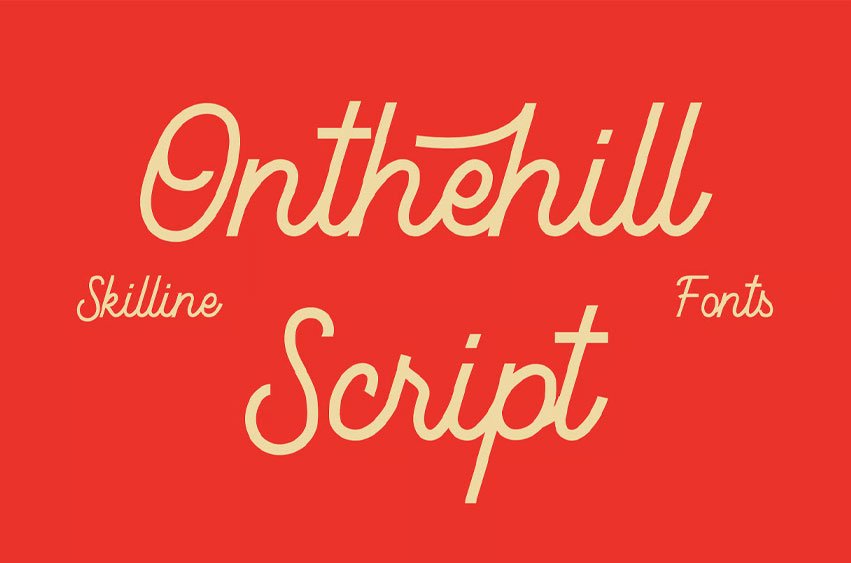
Onthehill Script Font is a smooth monoline handwritten typeface inspired by mid-century lettering and classic sign painting. Featuring clean curves and consistent line weight, it delivers a friendly, authentic feel with a polished, modern touch, balancing clarity, warmth, and character.
Designed to be bold enough for headlines yet elegant enough for body text, Onthehill offers a refined handmade look that works seamlessly across both print and digital applications.
- Monoline Handwritten Style
- Standard Ligatures & Stylistic Alternates
- Full Numerals & Punctuation